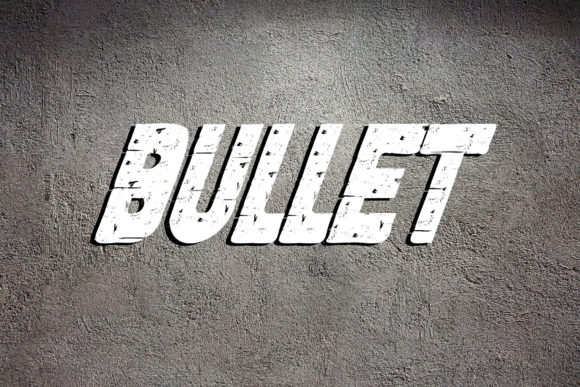
The Ultimate Guide to Bullet Font: A Cool, Rough Styled Display Font
I’ll never forget the time I was working on a project for a client who needed a bold, eye-catching font to capture the essence of their brand. I spent hours scouring the internet for the perfect font, but nothing seemed quite right. That was until I stumbled upon Bullet Font – a cool, rough styled display font that instantly elevated my design. In this article, I’ll share my experience with Bullet Font, its features, and how to make the most of it in your designs.
A Personal Review of Bullet Font
So, what makes Bullet Font so special? Here are a few things I love about it:
- ✨ Unique Style: Bullet Font has a one-of-a-kind rough styled display look that’s perfect for making a statement.
- ✅ Versatility: Whether you’re designing a logo, poster, or social media graphic, Bullet Font can adapt to any topic or theme.
- 💡 Instant Impact: This font grabs attention and adds a touch of edginess to any design.
Of course, no font is perfect, and here are a few quirks to keep in mind:
- 🤔 Limited Legibility: Due to its rough style, Bullet Font may not be the best choice for body text or long paragraphs.
- ⚠️ Overuse: Using Bullet Font excessively can make your design look cluttered and overwhelming.
The Story Behind Bullet Font
Bullet Font was designed by a creative team that wanted to create a font that would add a touch of ruggedness and personality to any design. Inspired by graffiti and street art, Bullet Font is the perfect blend of style and attitude.
| Font Name | Bullet Font |
| Author | Designvector10 |
| What type of designs is Bullet Font best suited for? | Bullet Font is perfect for bold, eye-catching designs like posters, logos, and social media graphics. |
| Can I use Bullet Font for body text? | While Bullet Font is stunning for headlines, it’s not ideal for body text due to its rough style and limited legibility. |
| Is Bullet Font available in different weights or styles? | Yes, Bullet Font comes in various weights and styles, allowing you to experiment with different looks and moods. |
In conclusion, Bullet Font is an incredible asset for any designer, crafter, or creative hobbyist looking to add a touch of edginess and personality to their designs. With its unique style, versatility, and instant impact, Bullet Font is sure to become a favorite in your font library.